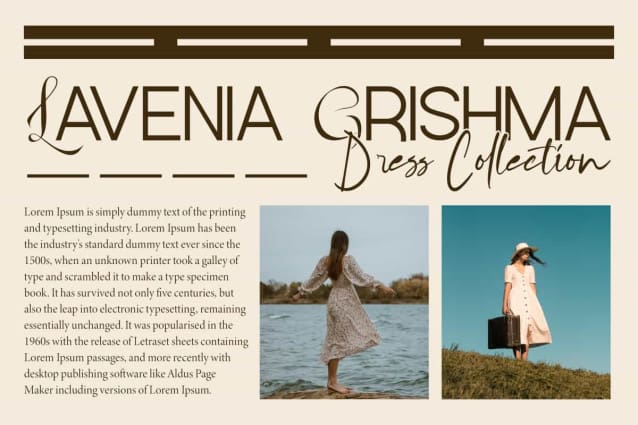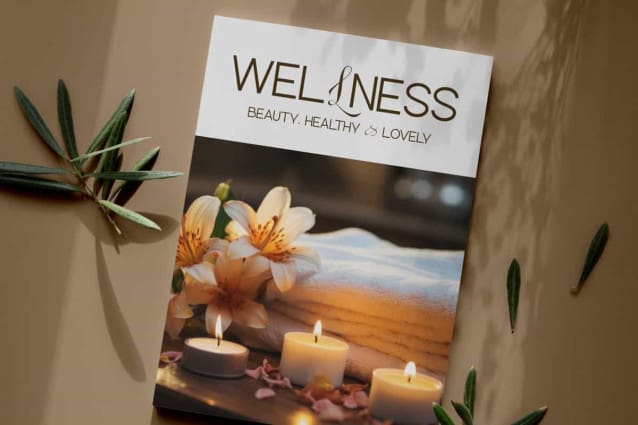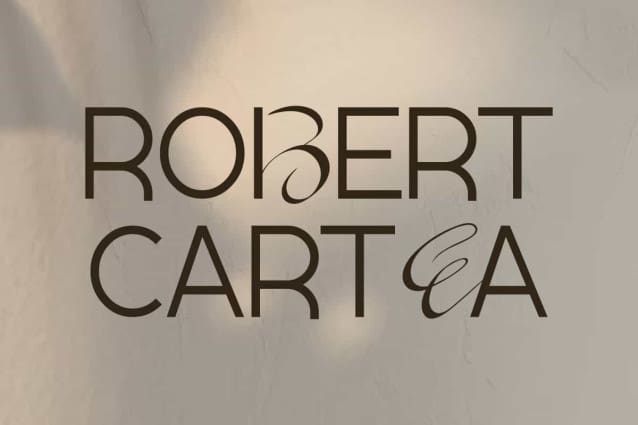
Robert Cartea Font
Robert Cartea Font is an elegant sans serif display font that has some additional beautiful elements. This font is made perfect and different by presenting differences in each character so that it will stand out and be suitable for any project, such as advertising, brand image, cover, gift boxes, greeting card, invitation, label, layout design, quotes, signage, stationery, template designing purposes, website page, and many more!
Robert Carte Font includes full set of Uppercase and Lowercase Basic Characters with different looks, Numerals, Punctuation, and Symbol. This is a charming typeface that presents an elegant style with its appeal lying in the smooth character of the letters which are made slightly curved, which is suitable for accessories and jewelry, beauty products, clothing brands, event or wedding organizers, fashion, flower shops, furniture, real estate, spa and salon, etc.